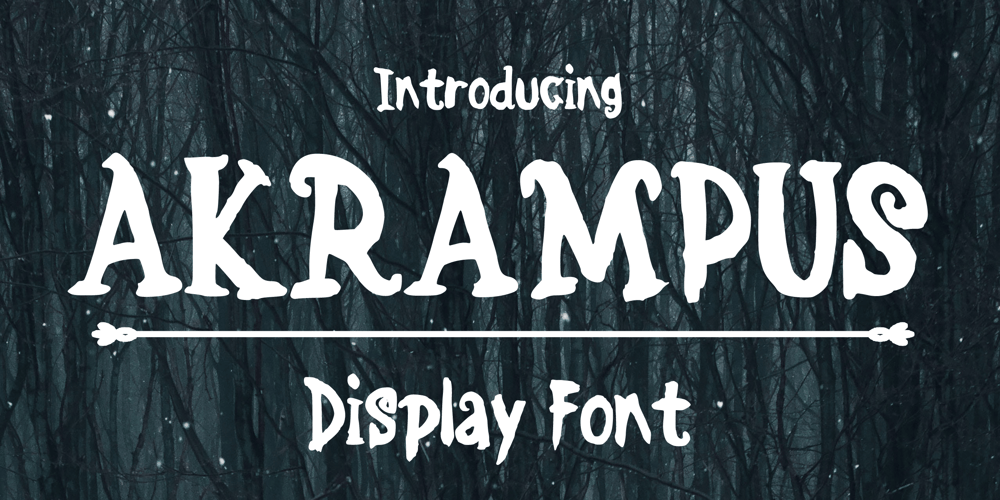
Akrampus
Akrampus font
Akrampus Font Family was designed by Gabriel Valentinus and published by Mvmet. Akrampus contains 1 styles and family package options. Akrampus is a scary Christmas display font. You can use it for anything ranging from t-shirts, book designs, and greeting cards to stickers and posters, or anything that needs a casual touch. Fall in love with its incredibly versatile style, and use it to create lovely designs!